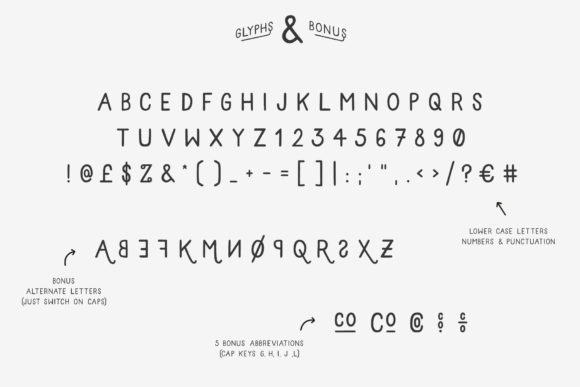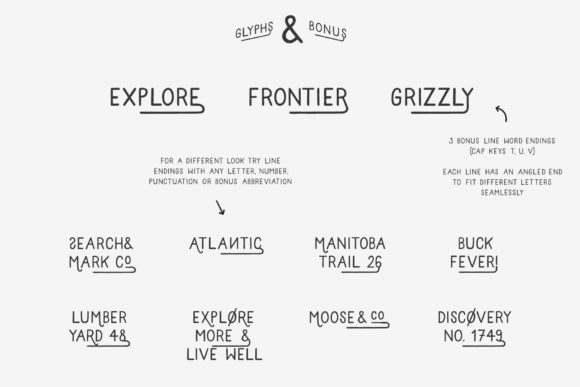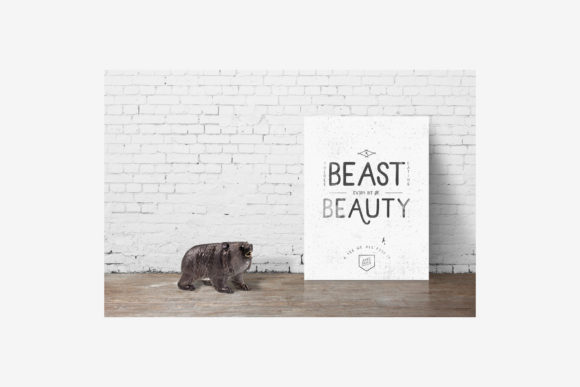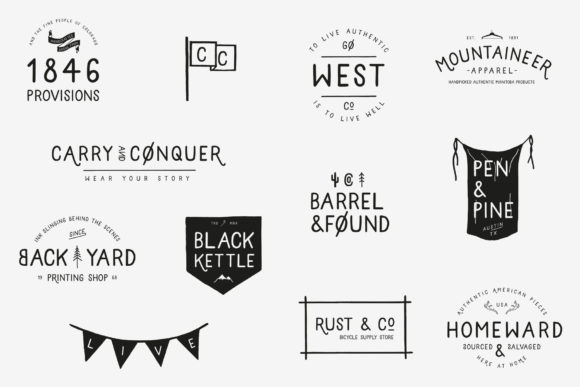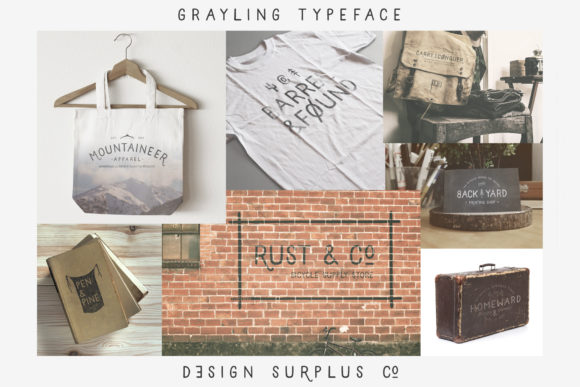
The Grayling Font: A Thin, Cool Display Font to Elevate Your Designs
I’ll never forget the time I was working on a project for a client who wanted a fun and friendly vibe, but I was struggling to find the right font to match their vision. I scoured the internet, tried out countless fonts, but nothing seemed quite right. That was until I stumbled upon the Grayling font. With its thin letters and cool display style, I knew I had found the perfect fit. In this article, I’ll share my experience with the Grayling font, its features, and how to make the most of it in your designs.
An Honest Review of Grayling Font
What I Love About Grayling Font
- ✨ Unique and eye-catching design: Grayling font has a distinctive thin lettered style that adds a touch of elegance to any design.
- ✅ Highly adaptable: This font can be used on a variety of design ideas, from posters and brochures to social media graphics and presentations.
- ✅ Fun and friendly vibe: Grayling font is perfect for designs that require a playful and approachable tone.
While Grayling font is an excellent choice for many designs, there are a few things to keep in mind:
- ⚠️ Legibility at small sizes: As with many thin lettered fonts, Grayling may not be the best choice for body text or small font sizes.
- 🤔 Limited use of bold weights: If you need a bold font for headings, Grayling’s thin style might not be the best fit.
The Backstory of Grayling Font
Grayling font was designed with the intention of creating a unique and eye-catching display font that could add a touch of elegance to any design. The designer aimed to create a font that was both fun and friendly, yet sophisticated and refined. The result is a font that’s perfect for designs that require a bit of personality and whimsy.
Q: What is the best use for Grayling font?
A: Grayling font is perfect for designs that require a fun and friendly vibe, such as posters, social media graphics, and presentations.
Q: Can I use Grayling font for body text?
A: While Grayling font can be used for body text, it may not be the best choice due to its thin lettered style. It’s better suited for headings and titles.